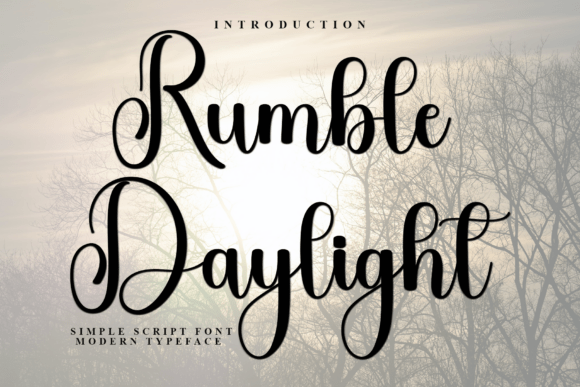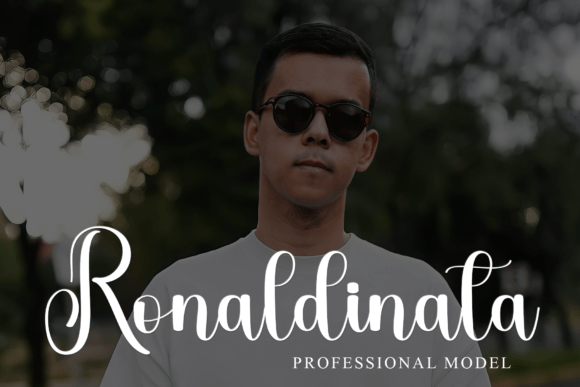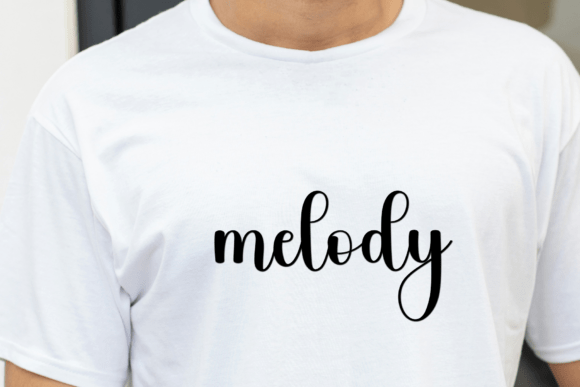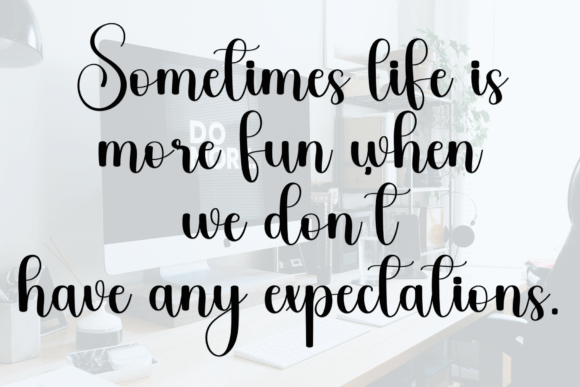
Rumble Daylight Font: Elegant Handwritten Script for Wedding Designs
About the Rumble Daylight Font
Experience the unique personality of Rumble Daylight Font, a font designed for impact. Rumble Daylight is a flowing handwritten font, described by an elegant touch, perfect for your favorite projects. Fall in love with its incredibly distinct and timeless style and use it to create spectacular designs!
Rumble Daylight’s elegant fluidity makes it ideal for headlines, short-form text in branding materials, and stylish packaging designs where its distinctive character can shine. It works exceptionally well for invitations, logos, and short quotes where its timeless quality adds a touch of sophistication. However, its flowing nature makes it less suitable for body text or long paragraphs; readability would suffer.
For optimal impact, pair Rumble Daylight with a clean sans-serif like Montserrat for a modern contrast or a classic serif such as Garamond for a more traditional feel. A geometric sans-serif could also create a striking juxtaposition, highlighting Rumble Daylight’s organic forms.
Rumble Daylight projects a sophisticated yet approachable personality; it’s bold yet elegant, making it perfect for brands that aim for a balance between stylishness and approachability.
Rumble Daylight Font Usage Examples
Rumble Daylight Font Example